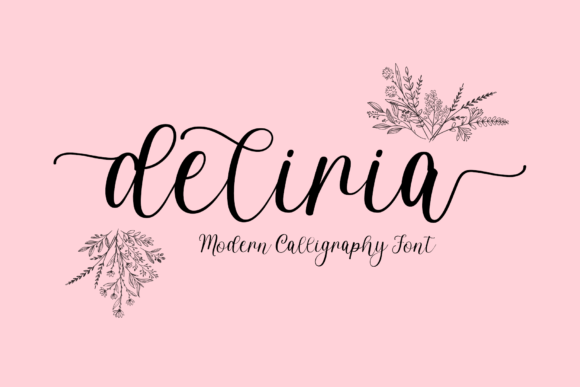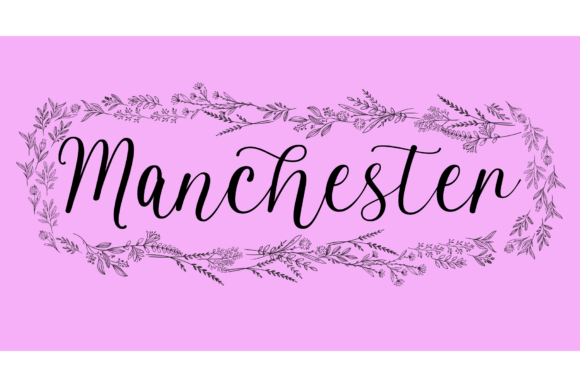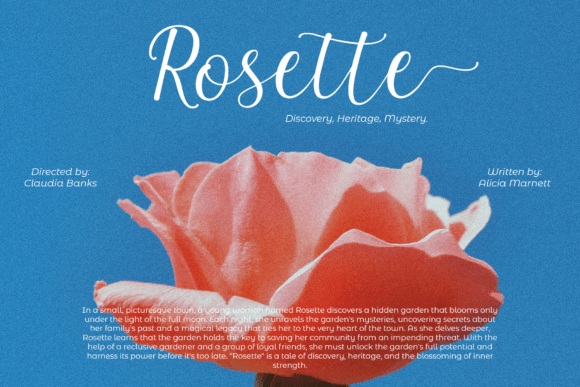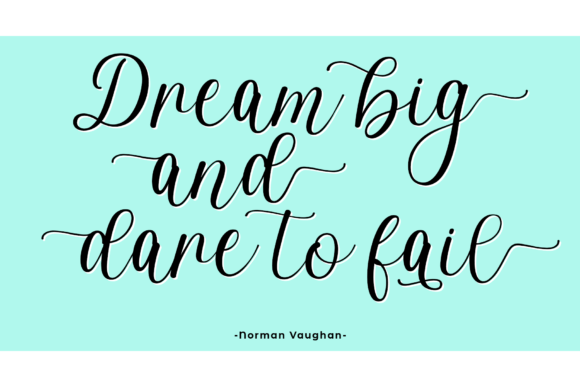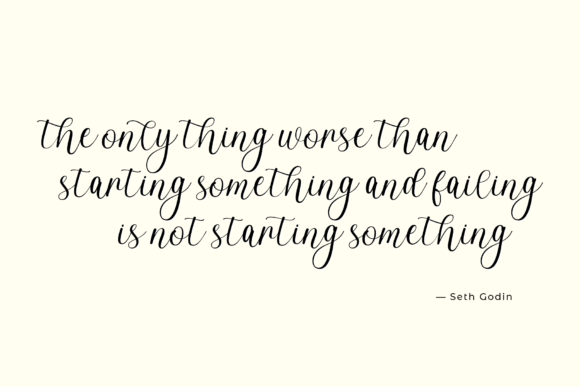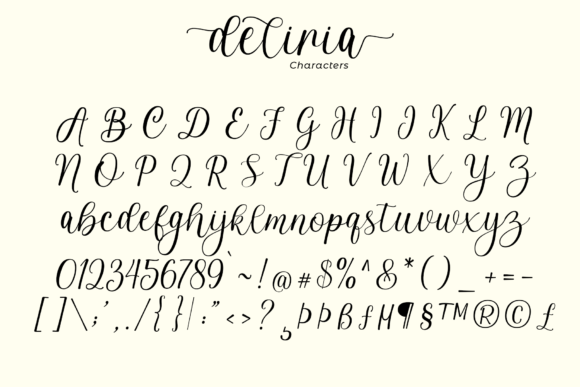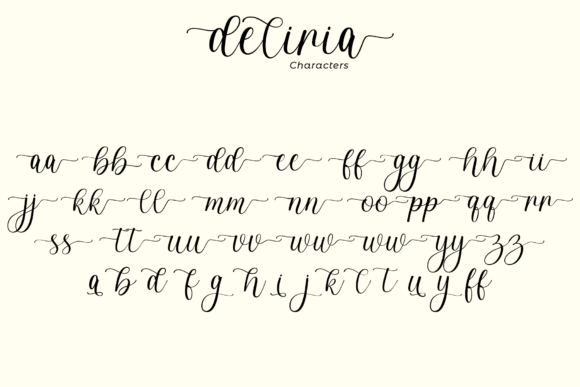
The Elegance of Deliria Font
Have you ever been struck by the perfect balance of lines and curves on a beautifully handwritten letter? For designers and typography enthusiasts, this moment is a moment of pure inspiration. It’s a glimpse into the world of elegant lettering, where every stroke and flourish comes together to create a masterpiece. And, for those who seek to replicate this beauty in their designs, there’s a new font that’s sure to capture their hearts: Deliria Font.
This modern calligraphy font boasts soft curves and lines that lend a delicate and realistic appearance to the characters. With Deliria Font, designers can add a touch of sophistication and whimsy to their projects, making it an invaluable addition to any typography collection. Whether you’re working on a wedding invitation, a branding project, or a personal blog, Deliria Font is sure to bring a level of elegance and refinement that’s hard to resist.
Deliria Font Key Features
- Font Family: Deliria Font
- Unique Characteristics: Deliria Font features a unique blend of hand-drawn and digital elements, resulting in a distinctive and elegant aesthetic. It includes 24 styles and 24 swashes, offering a wide range of creative possibilities.
Deliria Font Review
Overall, I’m quite impressed with the Deliria font. ✨ The unique, hand-drawn style gives it a charming and whimsical feel that’s perfect for creative projects or titles. The font is also highly customizable, allowing you to adjust the weight, size, and color to suit your needs.
One of the standout features of Deliria is its versatility. ✨ It can be used for both digital and print projects, and its varying line weights make it suitable for both headlines and body text. The font also comes with a range of ligatures and swashes, which add to its ornate and decorative feel.
- ⚠️ Limited character set: The font may not include all the characters you need, particularly in non-English languages.
- ⚠️ Not suitable for small text: The font’s intricate details may become lost when used in small text sizes.
- ⚠️ May not render well on all devices: As with any font, Deliria may not render consistently across different devices and screen sizes.
Overall, I would recommend Deliria font to designers who want to add a touch of elegance and whimsy to their projects. While it may have some limitations, its unique style and high level of customization make it a valuable addition to any font collection.
Tips for Getting the Most Out of Deliria Font
Here are some tips to help you get the most out of Deliria font:
- Use Deliria font for titles and headings to add a touch of elegance.
- Combine Deliria font with other fonts to create a unique and visually appealing design.
- Experiment with different font sizes and styles to create a dynamic and engaging design.
Deliria font is commonly used in:
- Photography and art projects.